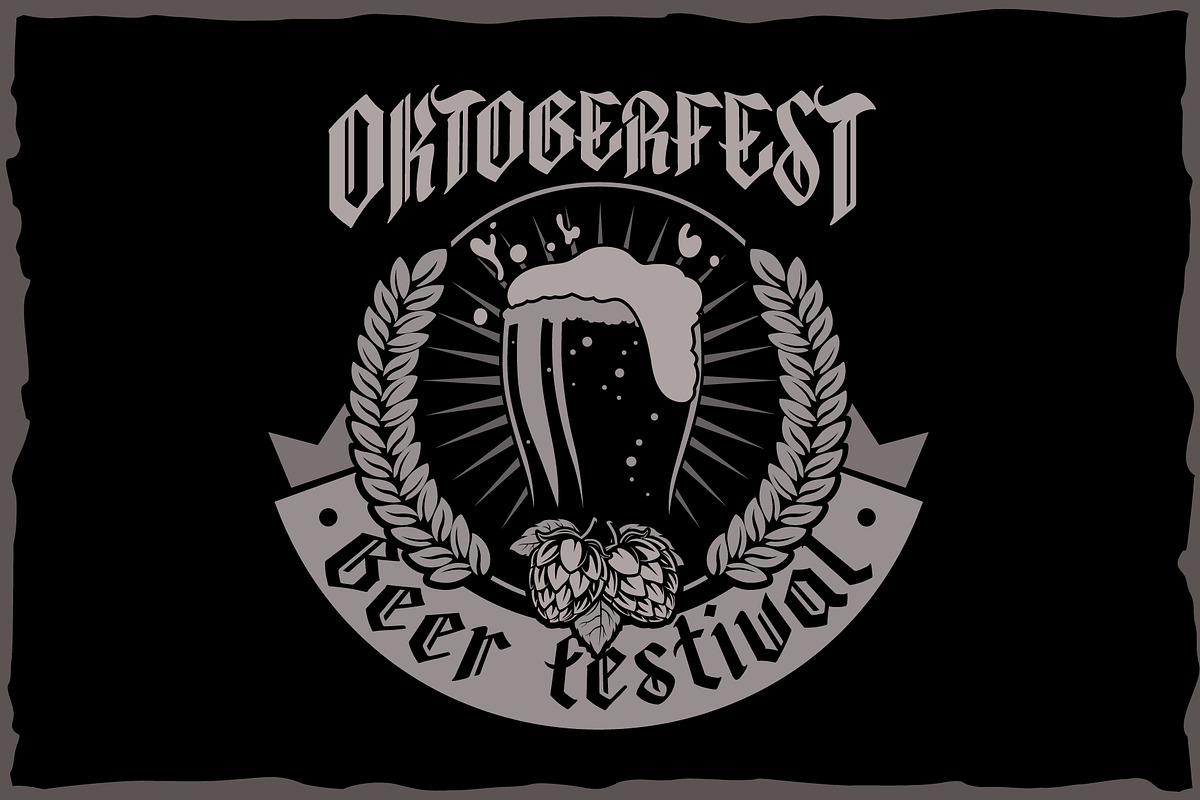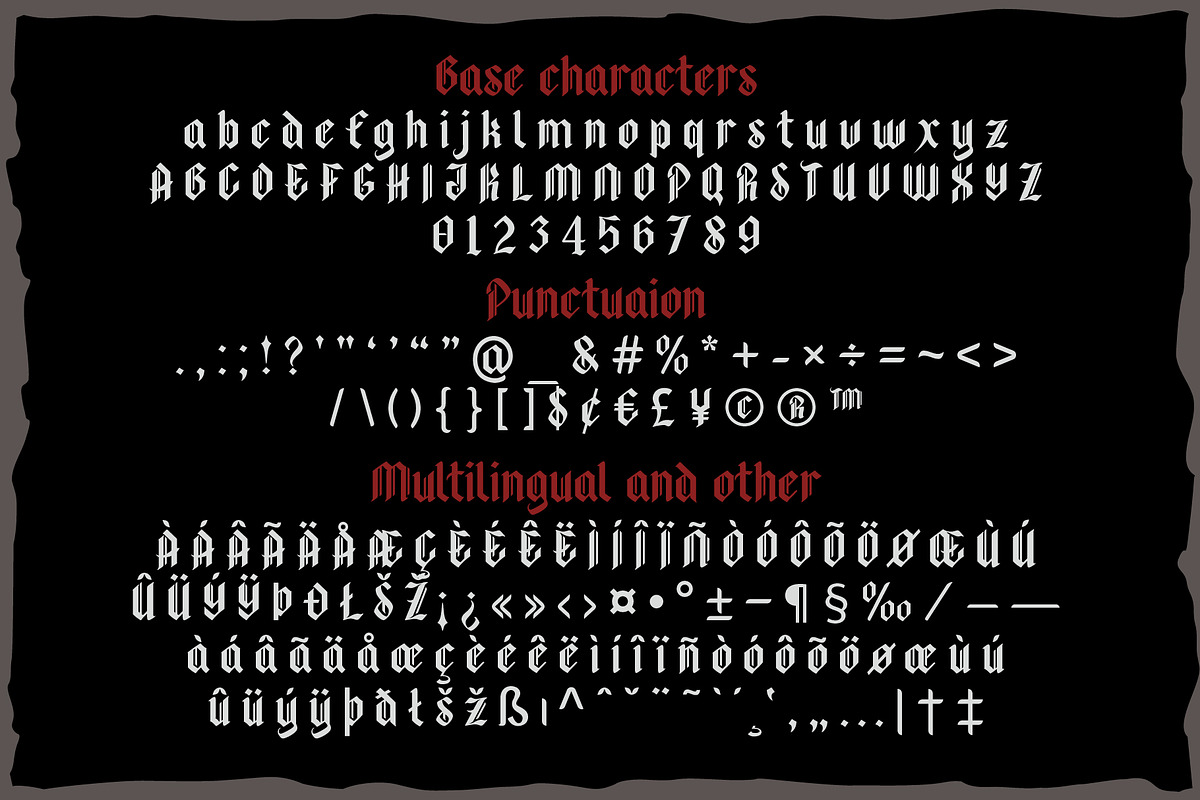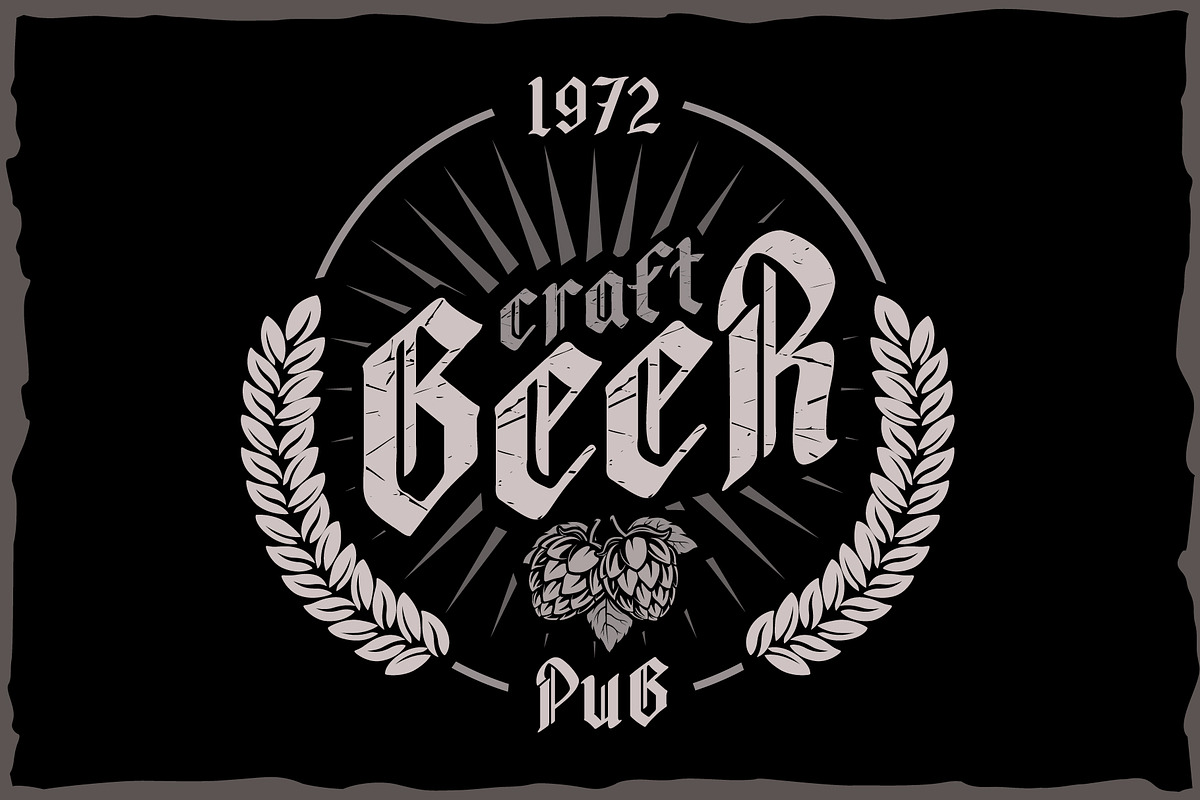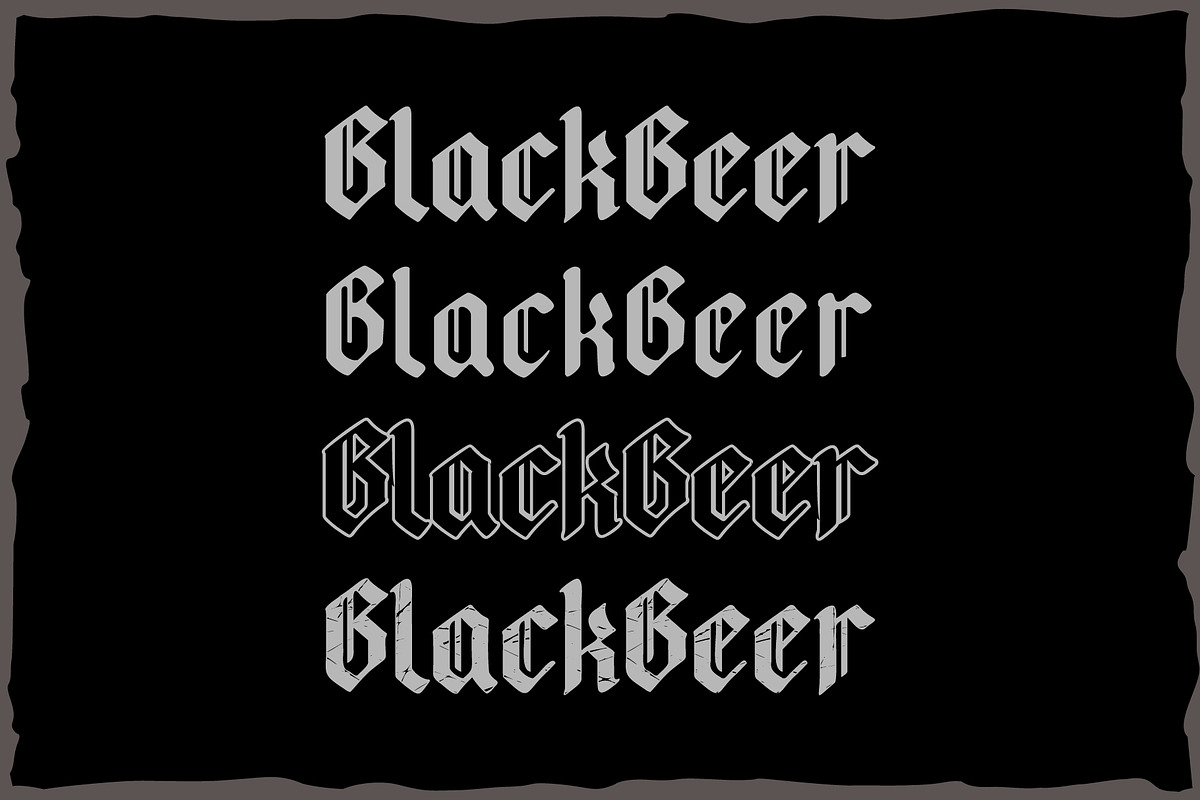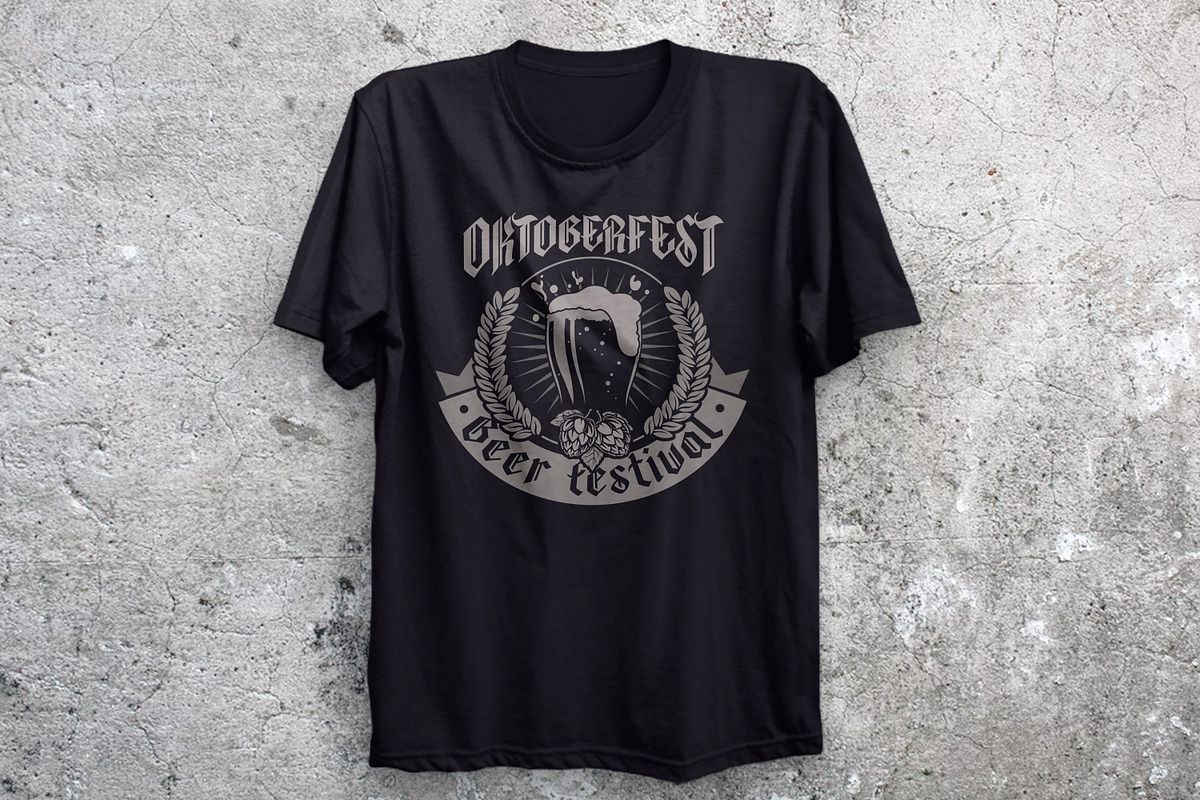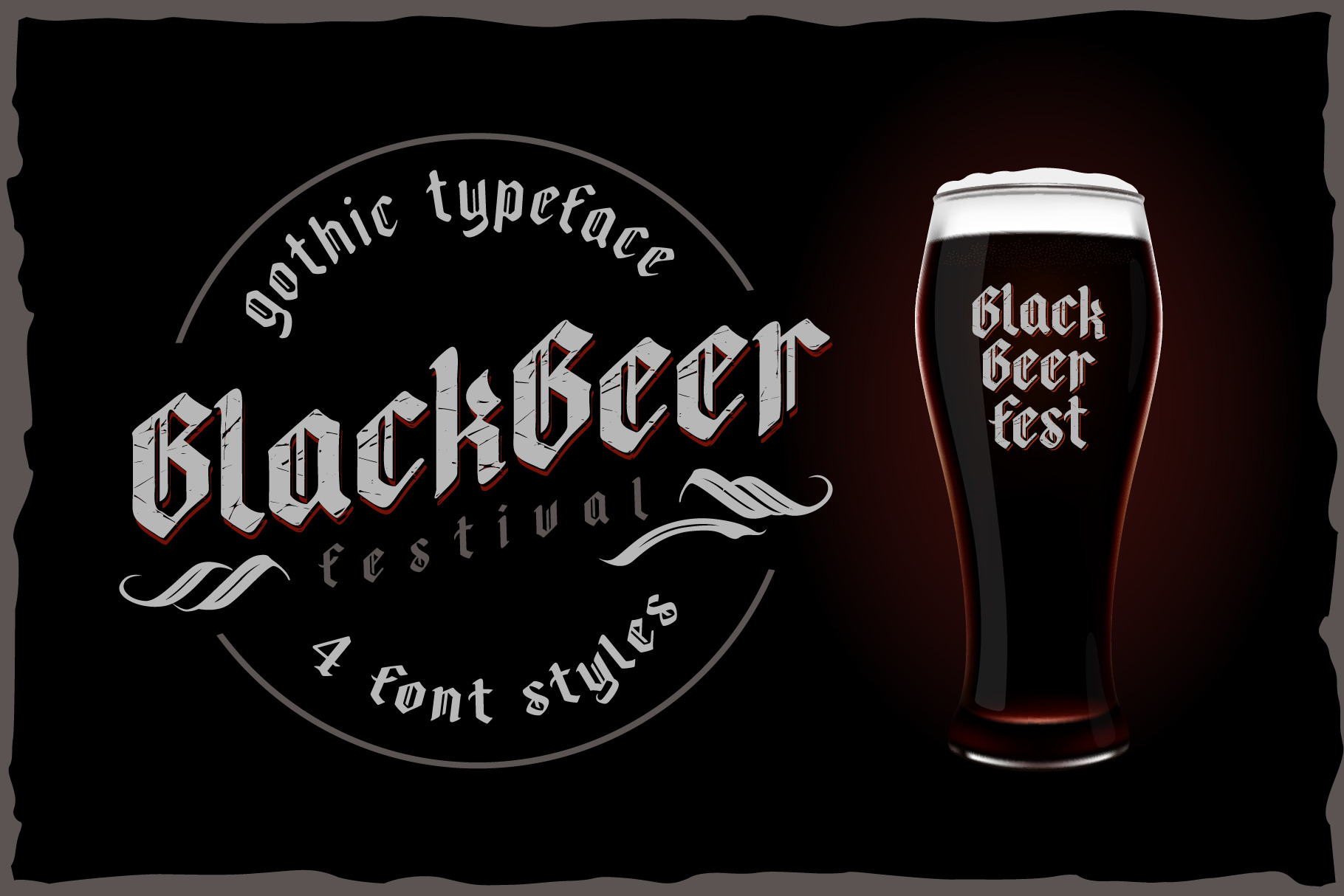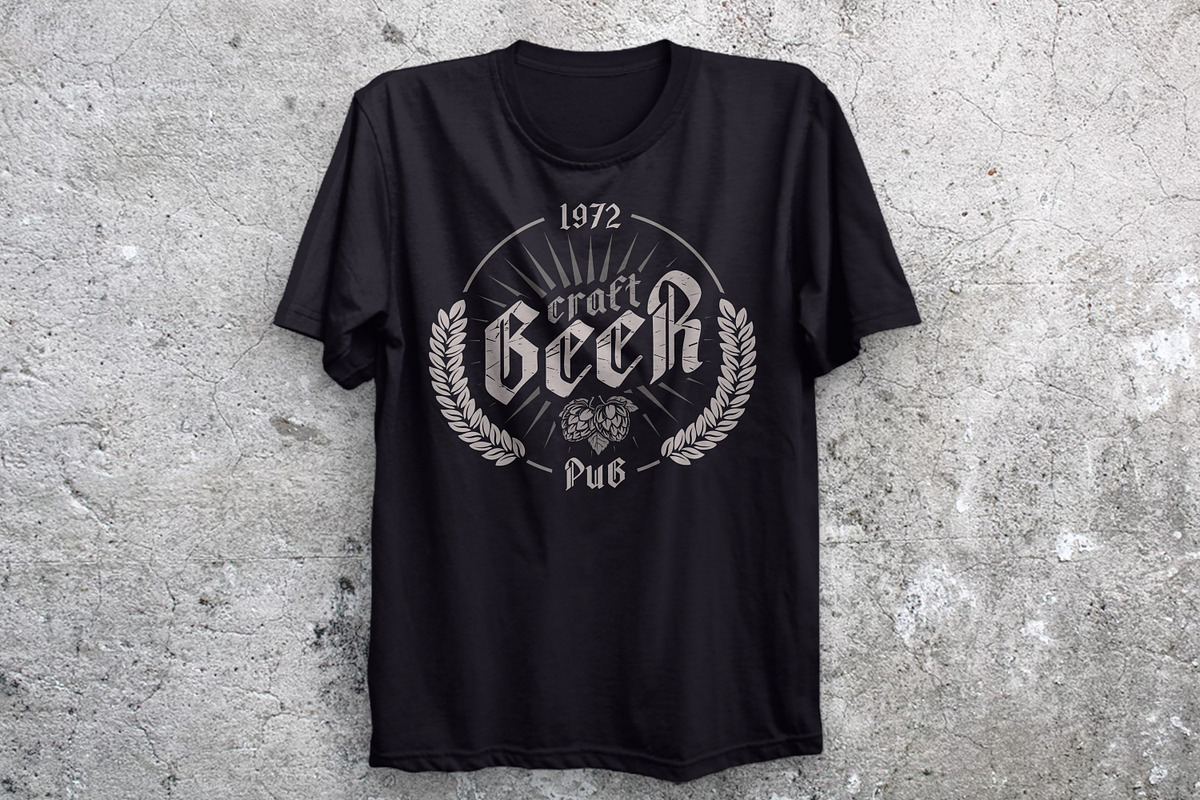
Blackbeer - strong gothic typeface
Black beer, strong Gothic. It is designed for logos, prints, headlines and more. The font has 4 styles, base, blurred, outlined, and aged. Contains basic characters and punctuation marks as well as extended multilingual characters.